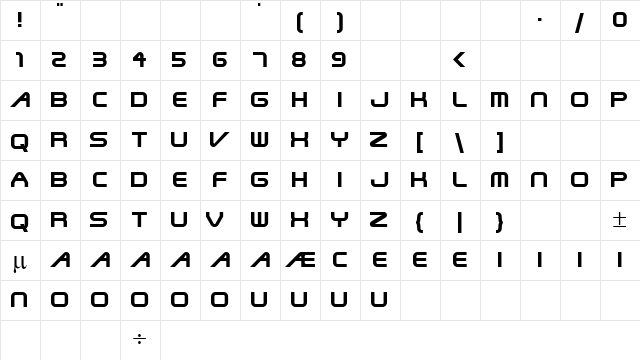
Red Brochette 1 Regular
Design Context for Red Brochette 1 Typeface
Red Brochette 1 takes a measured approach to typography — its balanced proportions and neutral character make it a reliable workhorse for both digital and print work.
Pro Tip: Use Red Brochette 1 in both headline and body roles to test its range before committing to a single application.